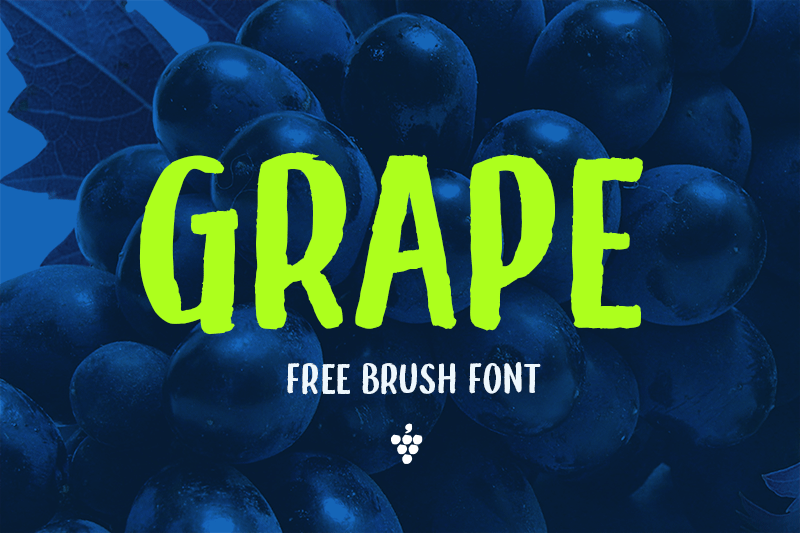
Font name: | Grape |
Author: | Phitradesign |
Note by Phitradesign | |
Enjoy the new brush-styled font project from phitradesign fonts. Its premium and vintage designed letters are perfect for posters, logos or bold headlines. It's free for personal only so give it a try or buy the commercial license including the full set of over 300 glyphs and an italic version here: www.phitradesign-fonts.com/grape Please contact us if your total company size exceeds 10 employees. Thank you! |